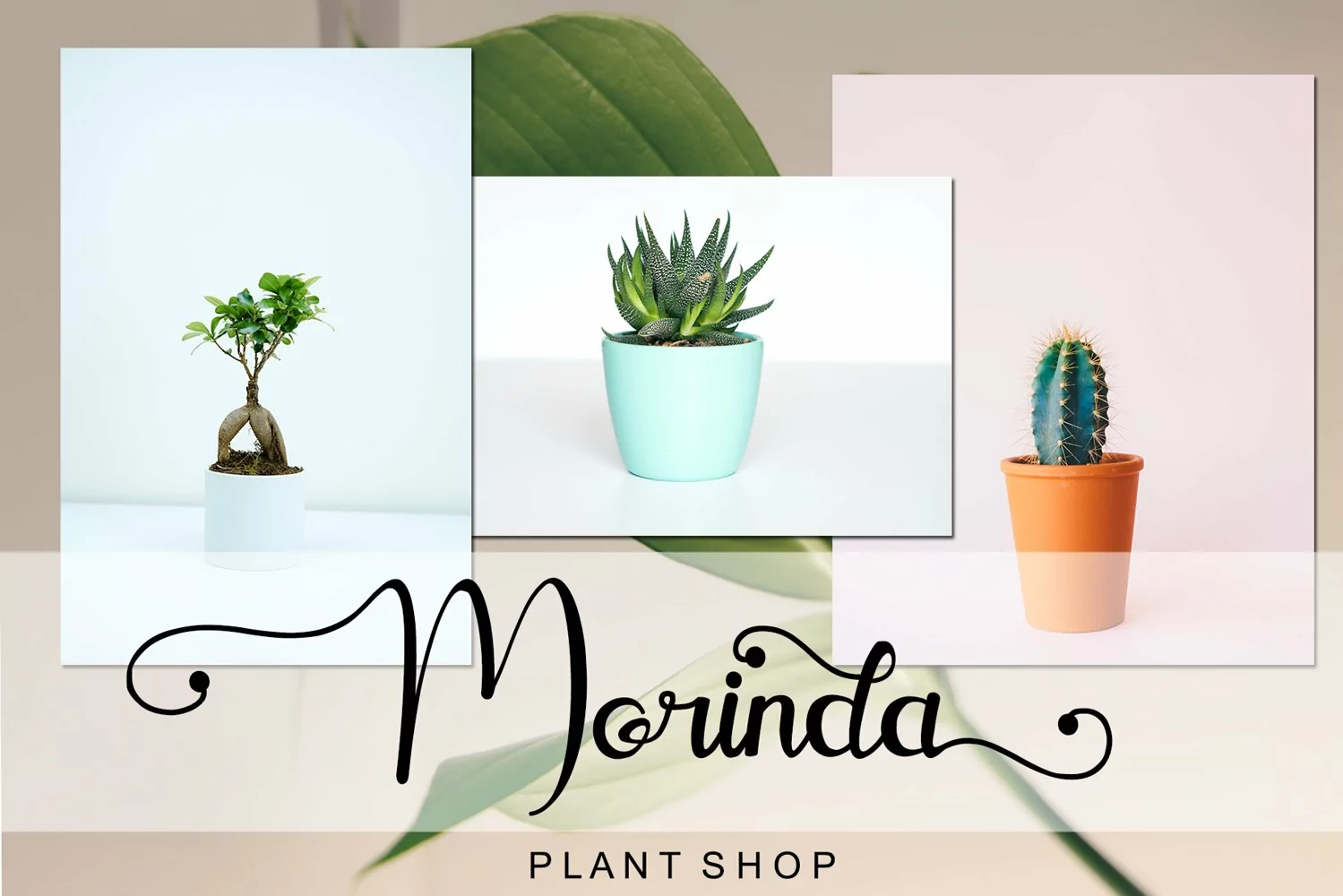
Beautiful Handwritten
Agathis is a elegan script font by Letterafa. It has flowing letters that will give your designs a unique and sweet look. Agathis is perfect; greeting cards, a package design, a brand identity, craft design, any DIY project, book title, wedding invitation, packaging, and more.